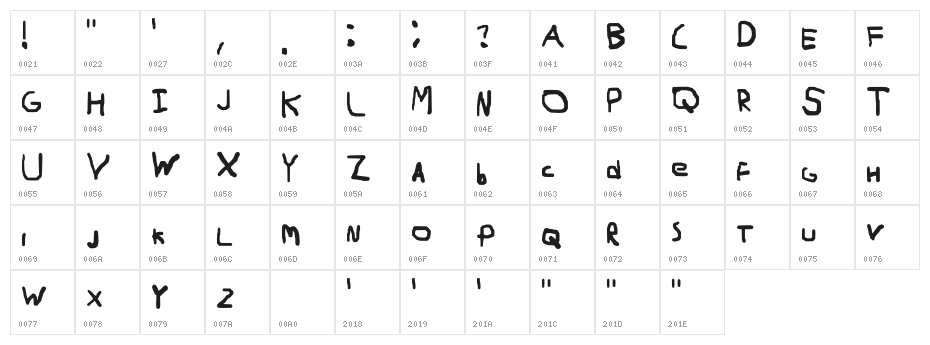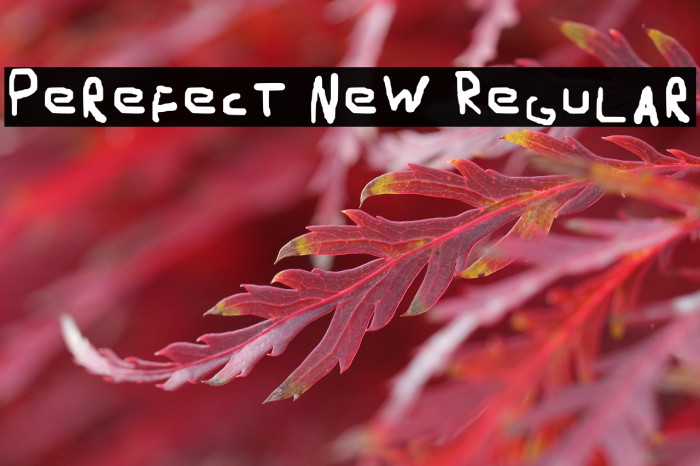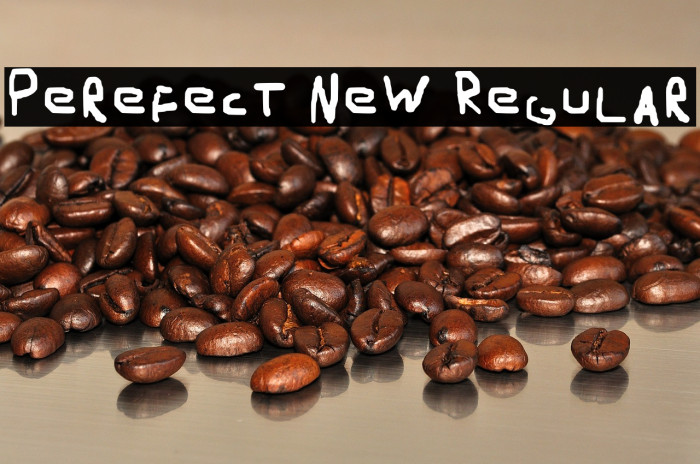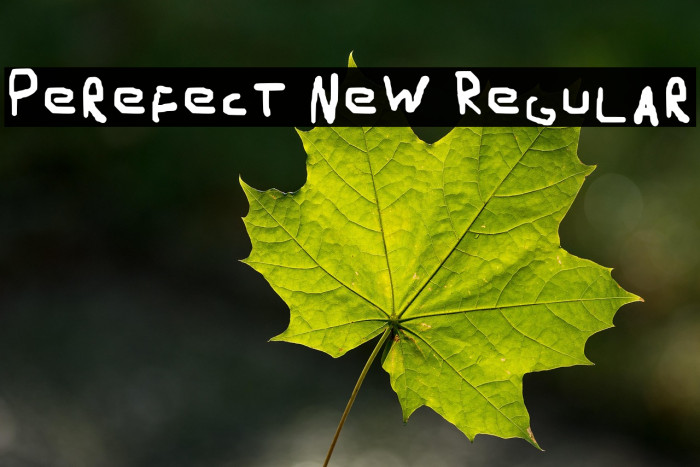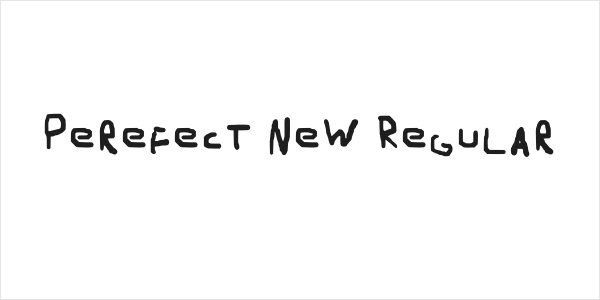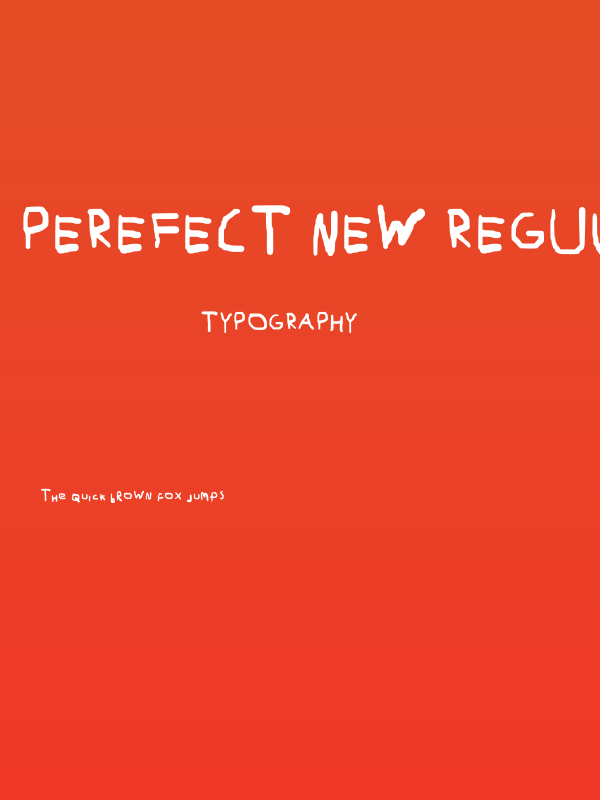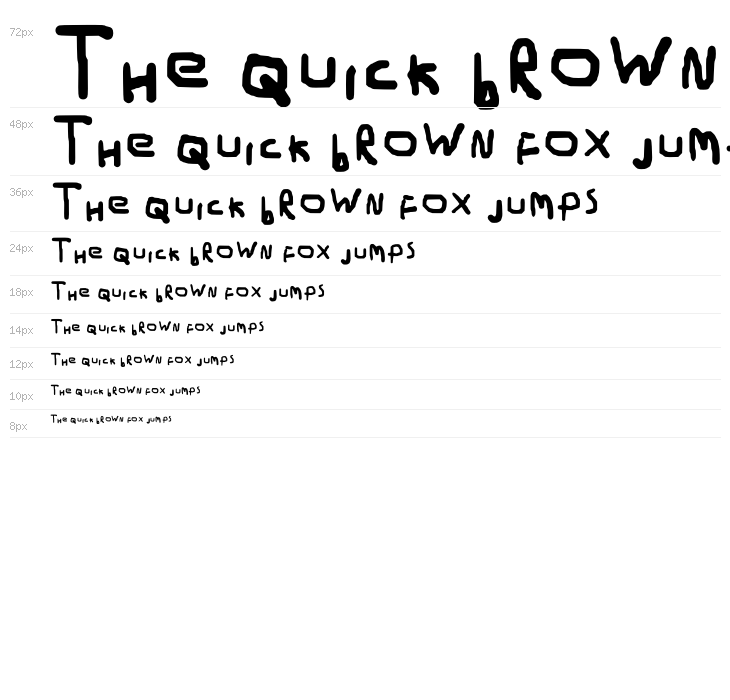
Perefect New Regular Font
Perefect New Regular Description
This font features a playful, hand-drawn style with irregular strokes and a casual appearance. The letters are slightly uneven, giving it a whimsical and informal feel. The uppercase and lowercase letters maintain a consistent style, with rounded edges and a slightly bold presence. The numbers and special characters follow the same playful design, making the font suitable for creative and informal projects. The overall appearance is approachable and friendly, perfect for adding a personal touch to any design.
| Proposed Projects | Ideal for children's books, greeting cards, casual posters, and creative branding. |